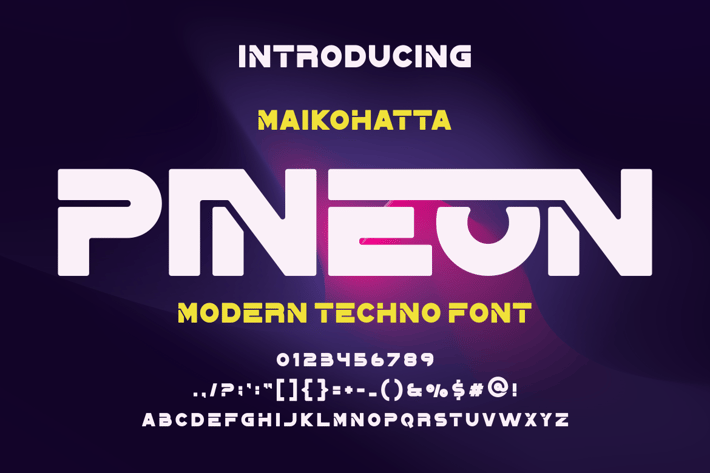
PINEON FONT
Introducing our new product PINEON FONT - Modern Font
PINEON FONT - Modern Font is a bold and authentic display font. The font is suitable for any branding project like logo, t-shirt printing, esport, and many more. outstanding in a wide range of contexts.